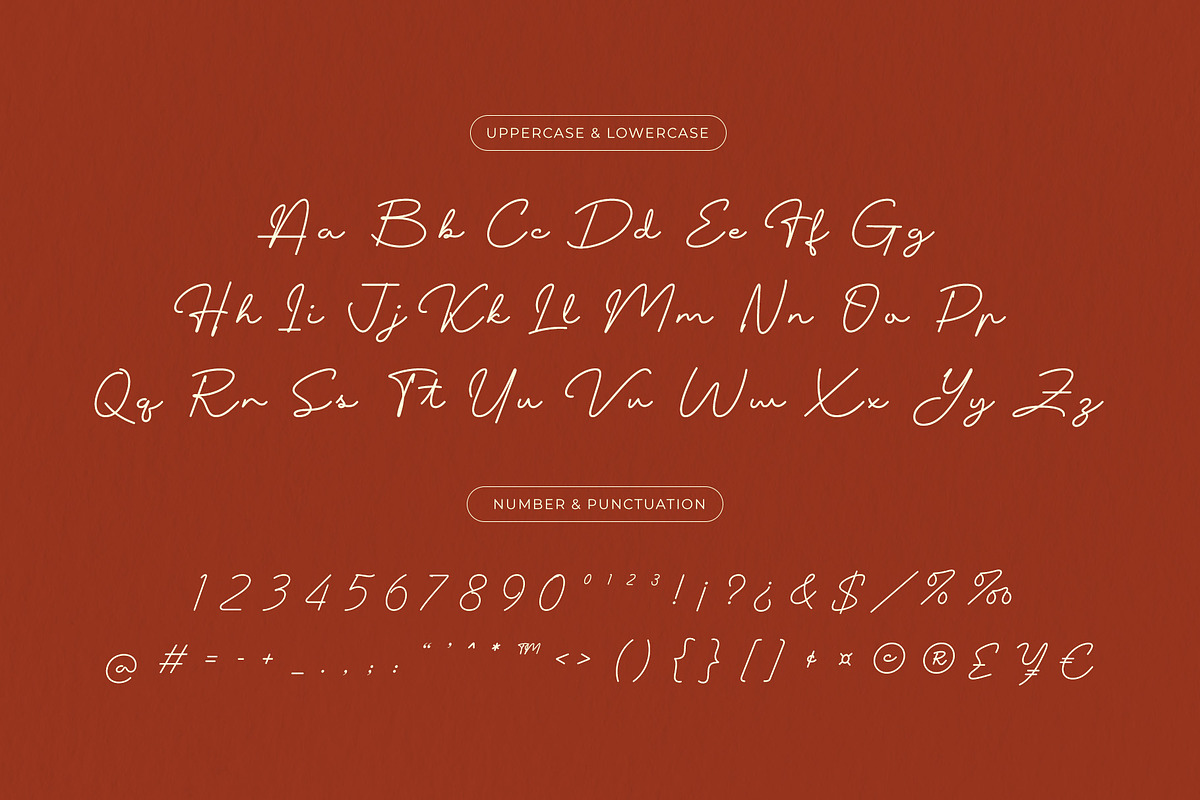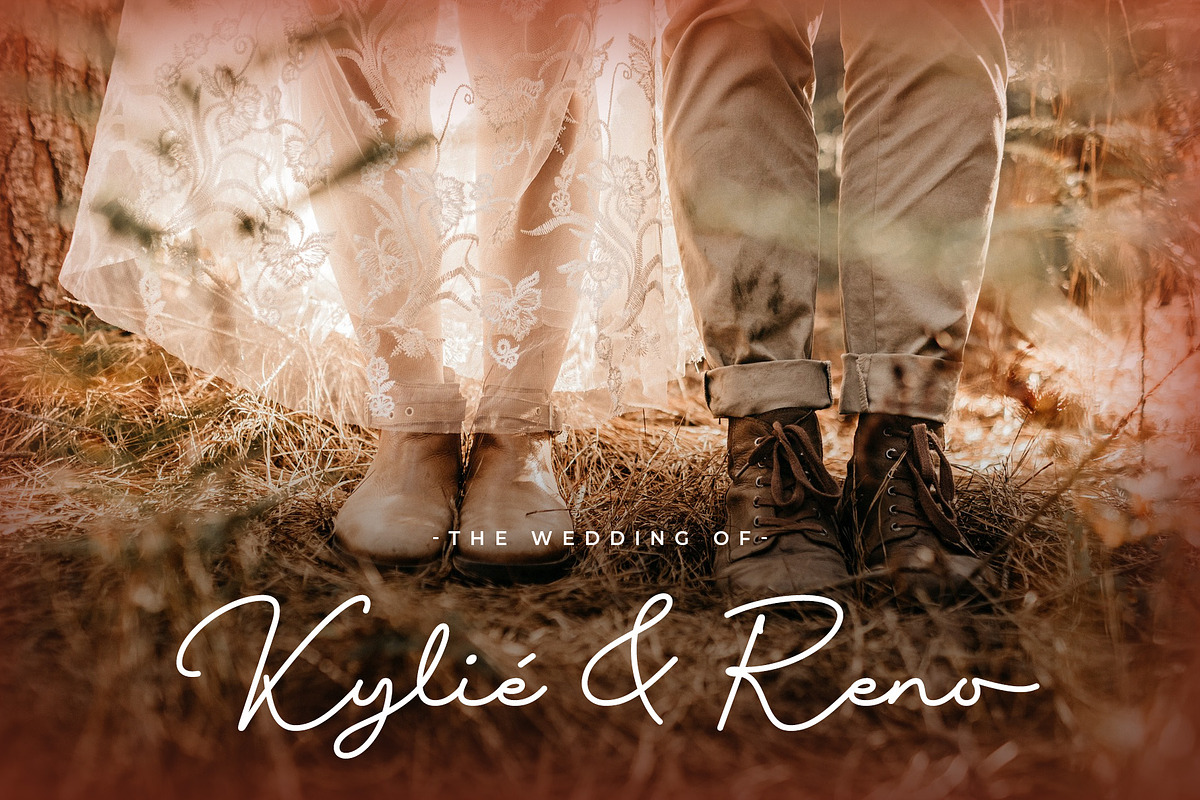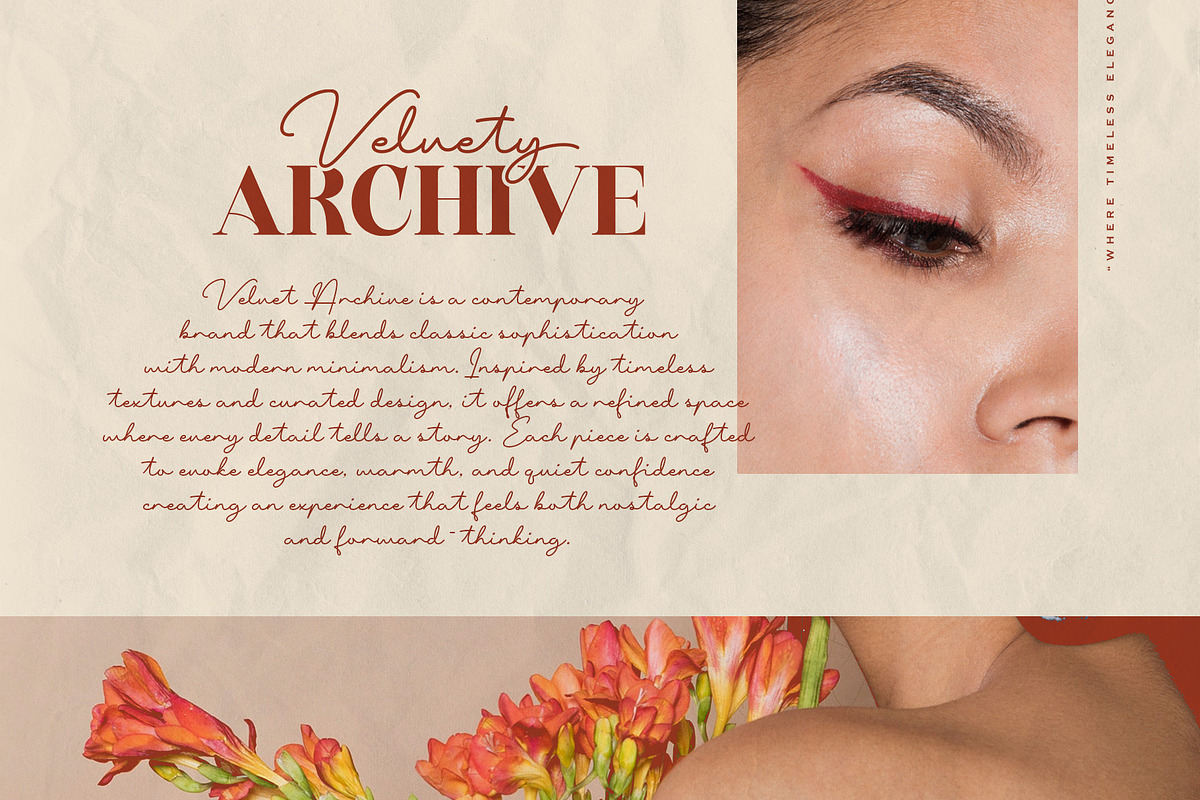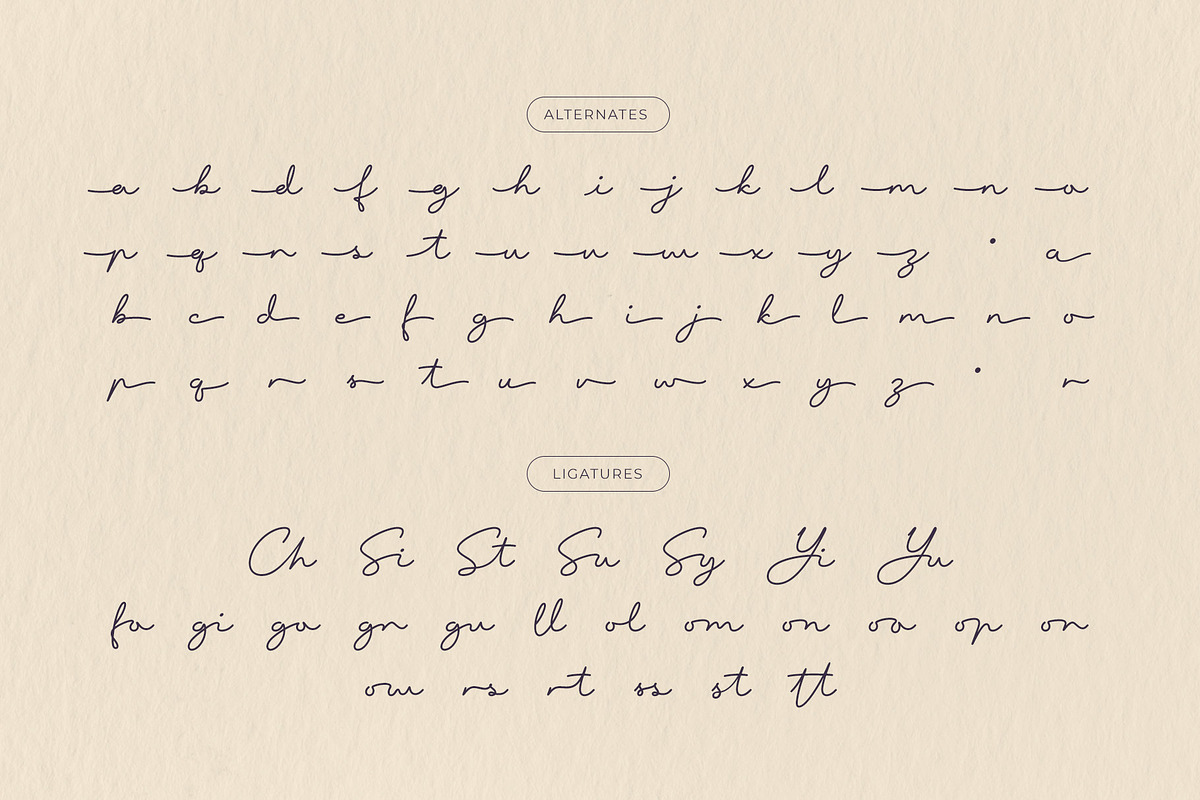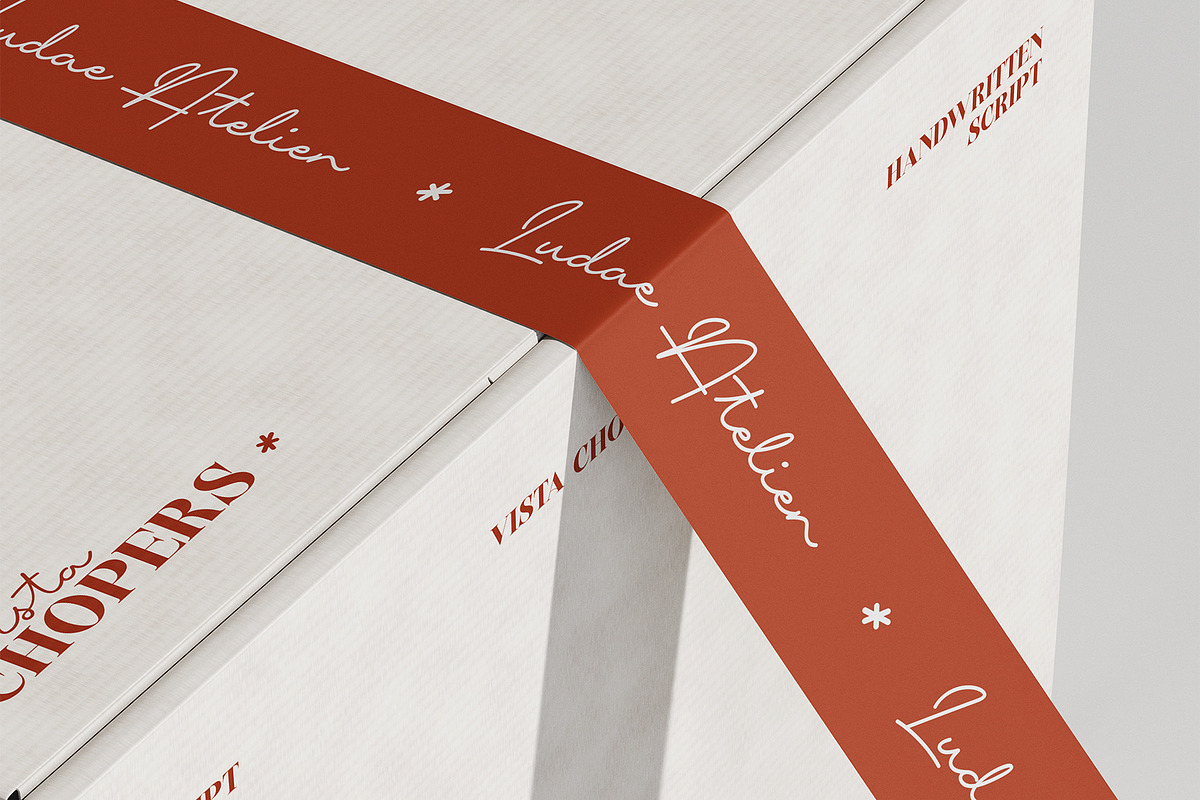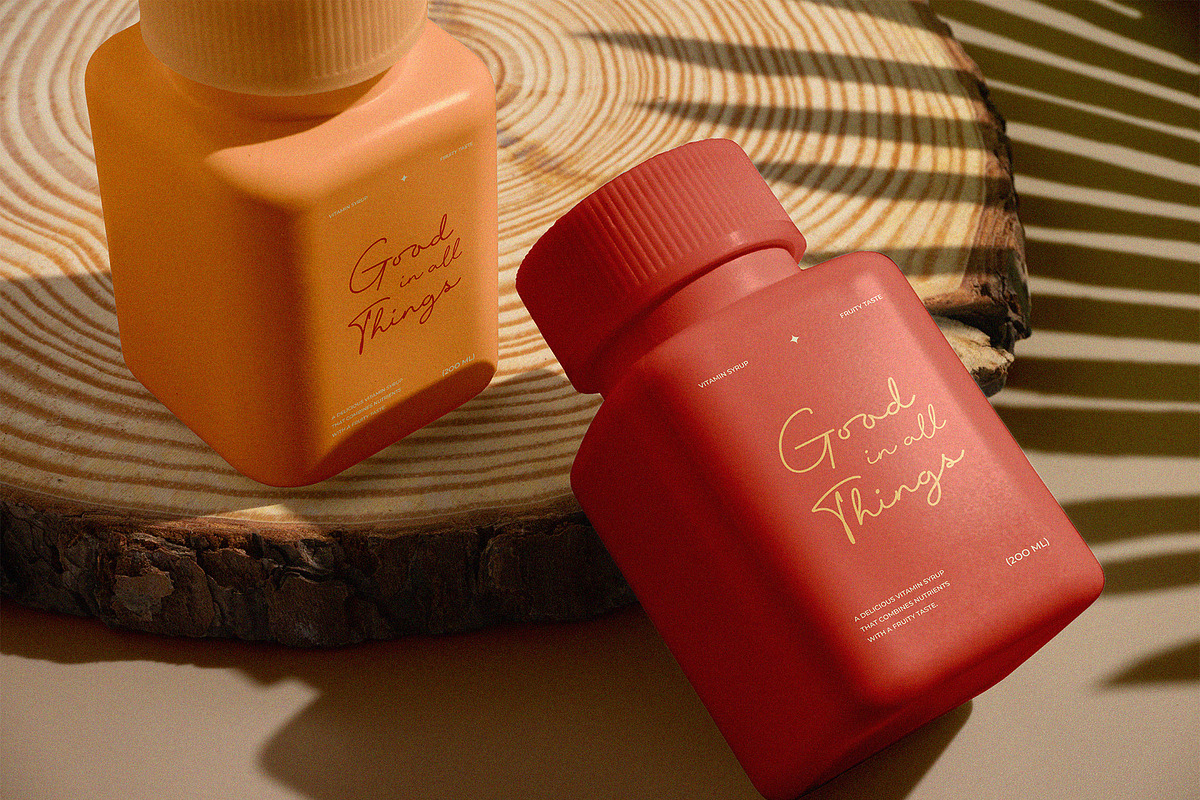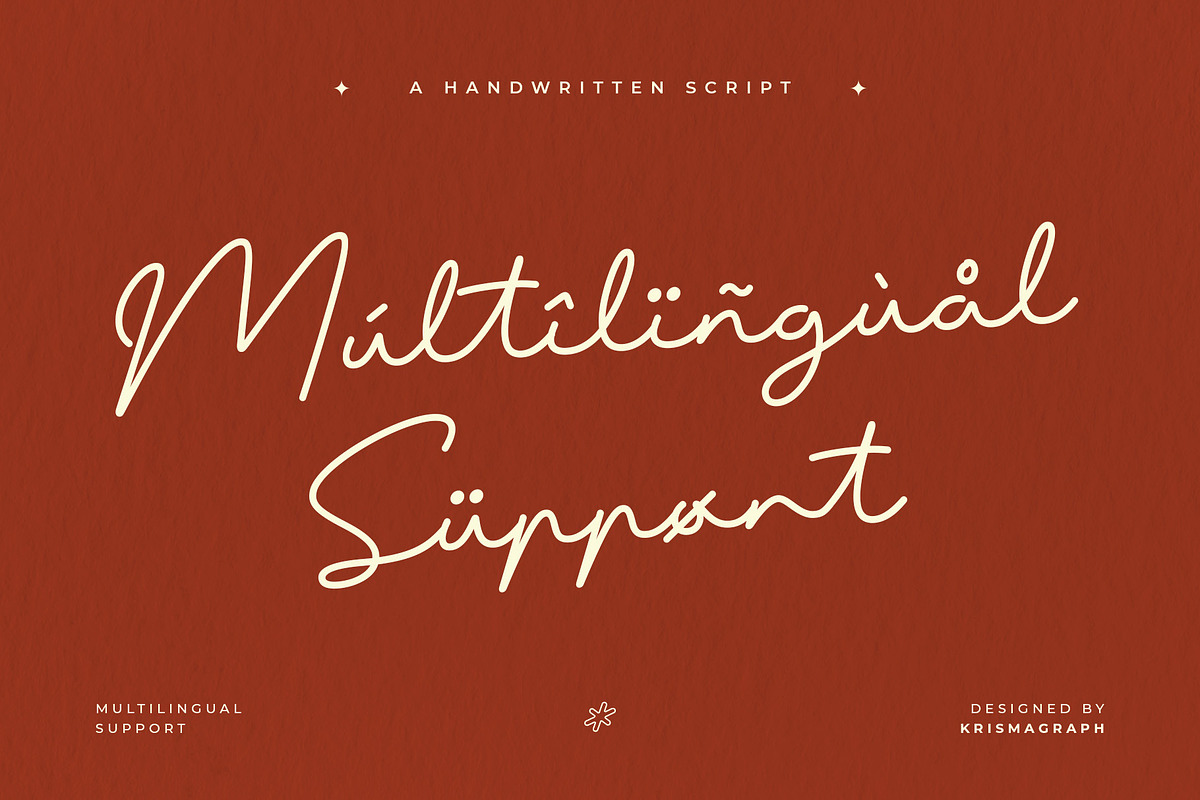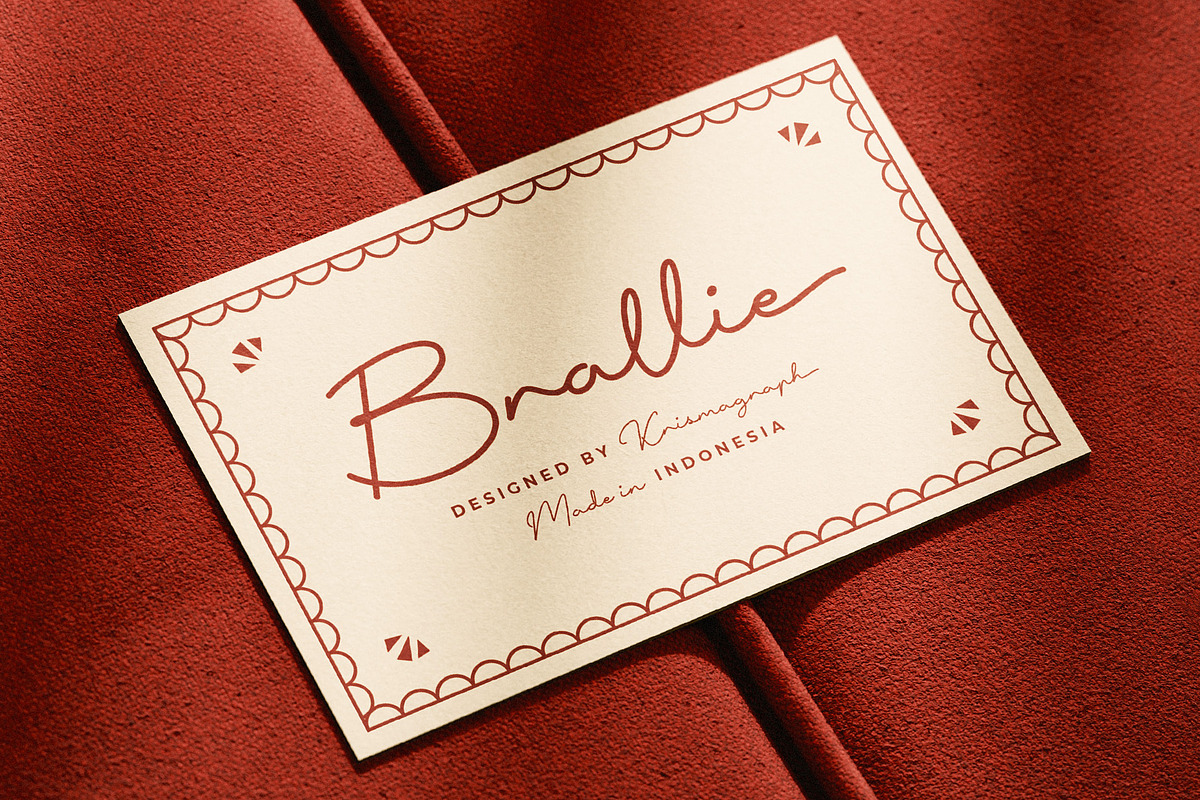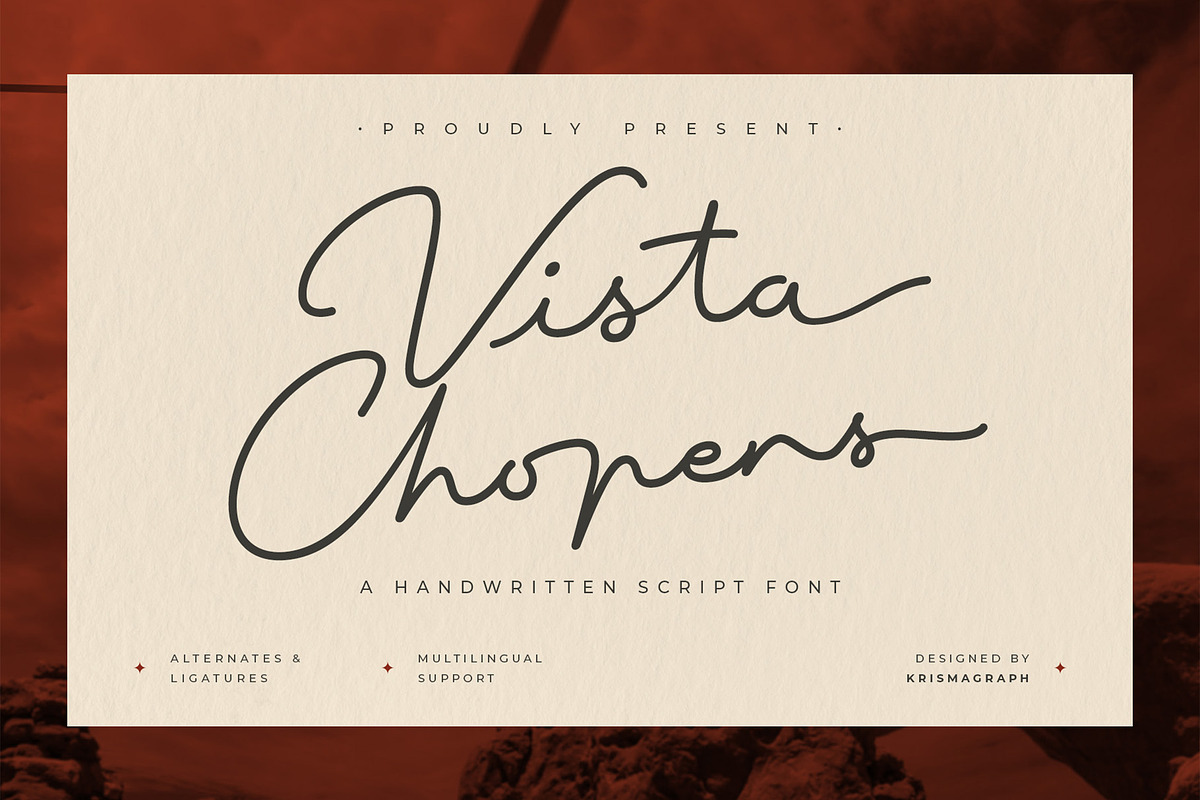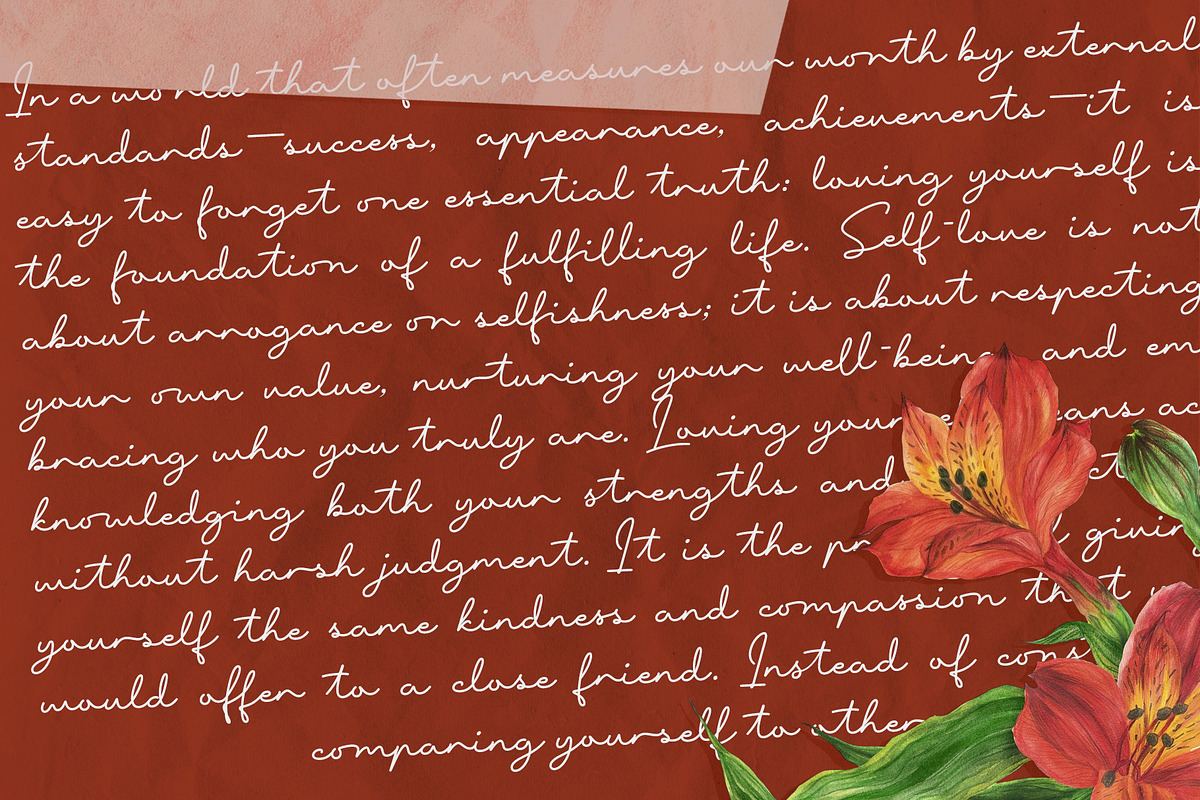
Vista Chopers – Natural Handwritten
Vista Chopers is a handwritten script font that beautifully blends elegance and modernity in every stroke. Designed with smooth, flowing lines and well-balanced letterforms, this typeface delivers a personal yet professional touch — perfect for branding projects, packaging, wedding invitations, editorial layouts, posters, or any creative work that needs a signature handwritten charm.
This font comes with a rich set of alternates and ligatures, allowing you to create natural and dynamic lettering compositions. It also includes multilingual support, making it versatile for global use. Every detail is crafted with precision to offer a flexible and refined typographic experience, ideal for modern designers who value character and sophistication.
- Numbers, fractions
- Punctuation and symbols